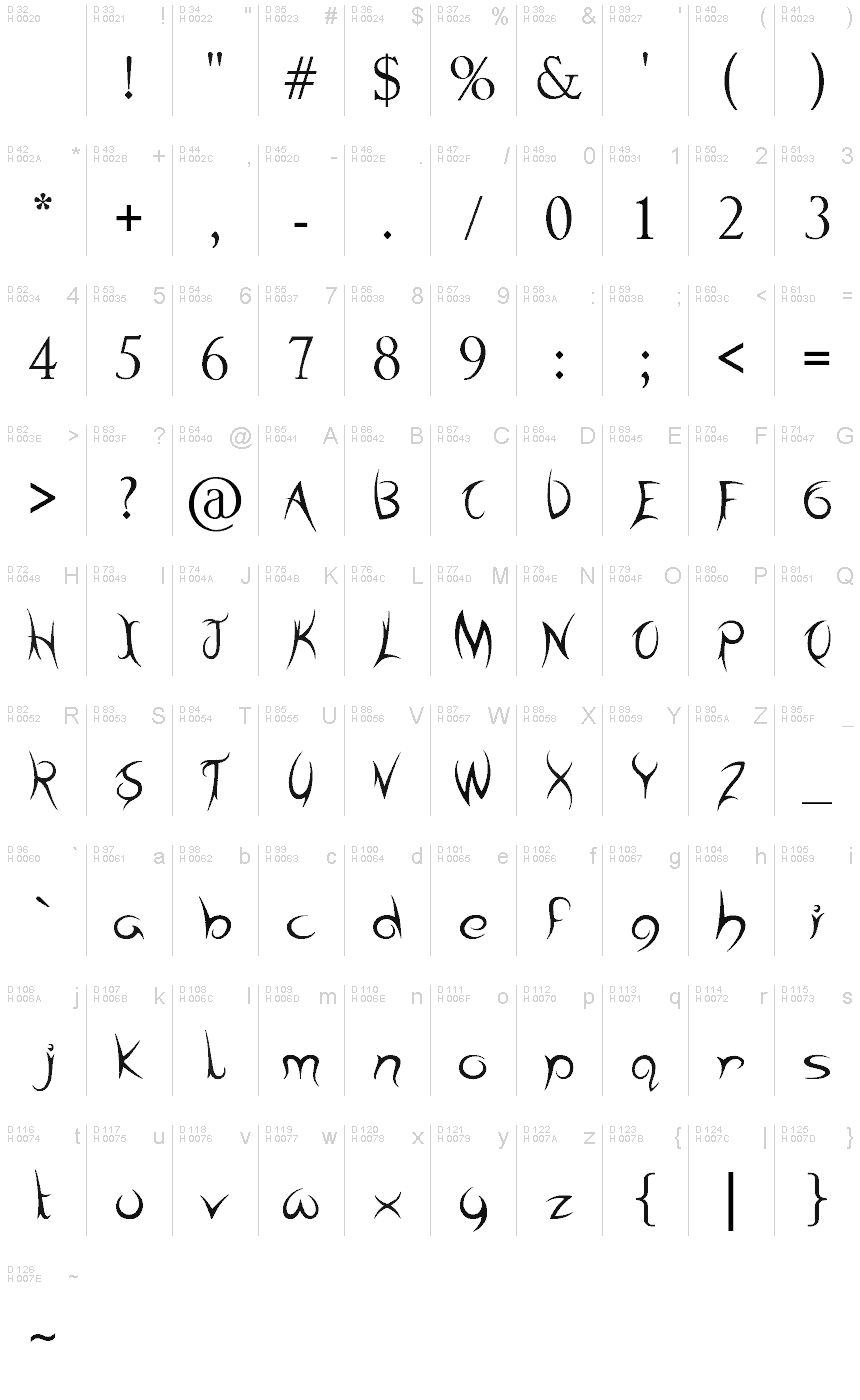
Tribal Times
Tribal Times is a unique font that captures the essence of gothic and tribal aesthetics, masterfully created by TattooWoo.com. Its semi-light weight lends an elegant yet assertive presence to any text. The distinctive strokes and sharp flourishes prevalent in Tribal Times reflect a style reminiscent of intricate tribal patterns and gothic architecture, making it an exceptional choice for designers seeking to imbue their projects with a sense of ancient tradition fused with modern design sensibilities.
The font's aesthetic appeal lies in its ability to stand out without overwhelming the content it accompanies. Whether used in logo design, promotional materials, or as a dramatic addition to digital art, Tribal Times offers versatility and visual impact. Its stylized characters are not only eye-catching but also convey an air of mystique and sophistication.
Tribal Times is suited for use across various creative platforms where a touch of individuality is desired. Its harmonious balance between decorative elements and legibility ensures that it can be employed effectively in both large displays and subtler textual applications.